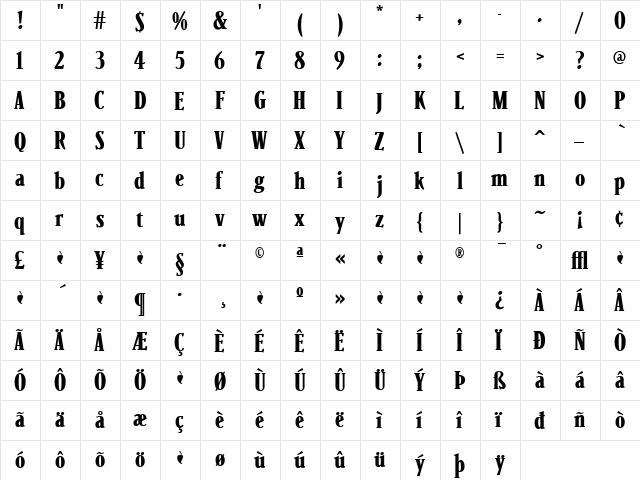
Parkinson Bold
Design Context for Parkinson Typeface
Parkinson offers clean, dependable letterforms without strong stylistic allegiance, making it a practical choice for designers who need flexibility. The heavy weight commands attention and anchors typographic hierarchies.